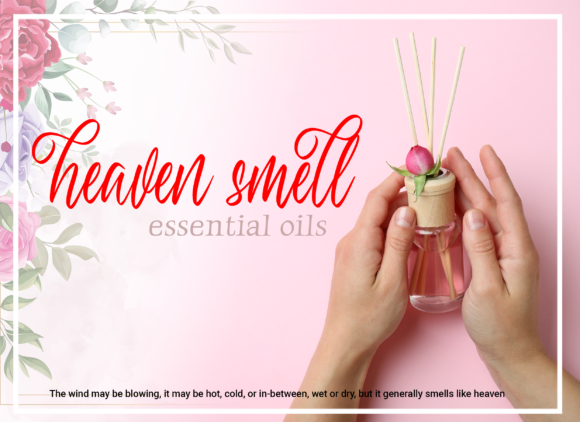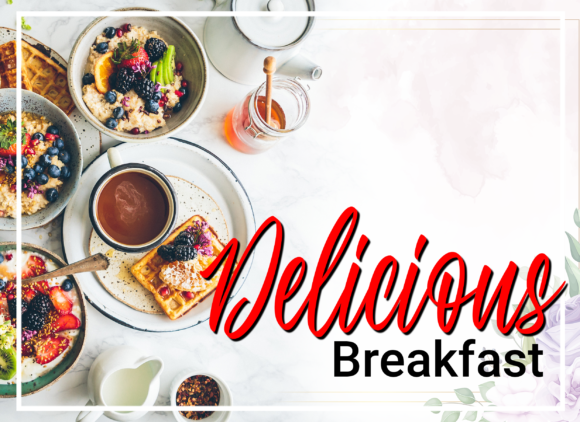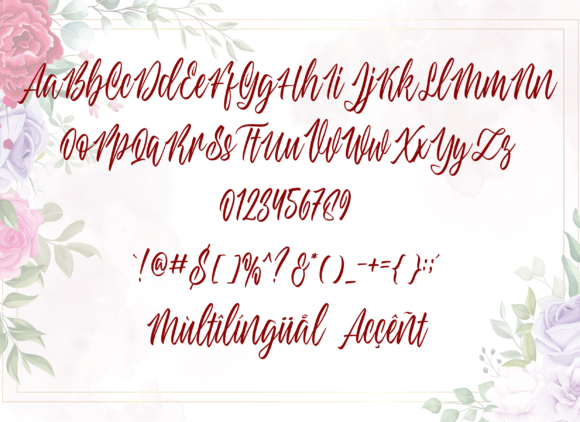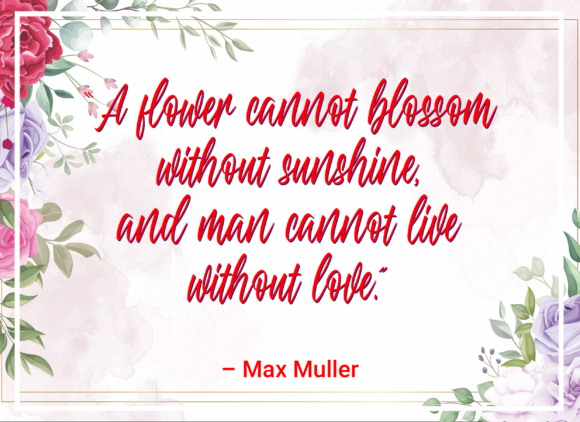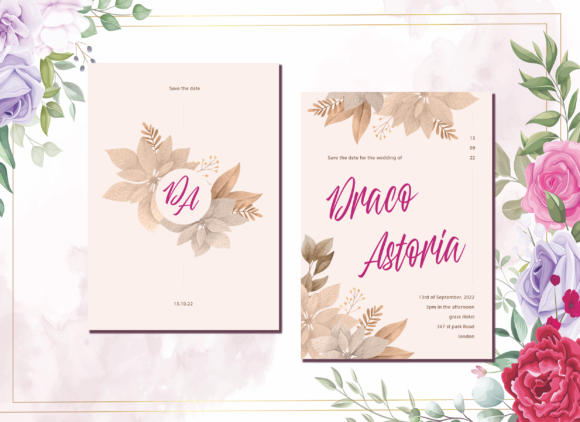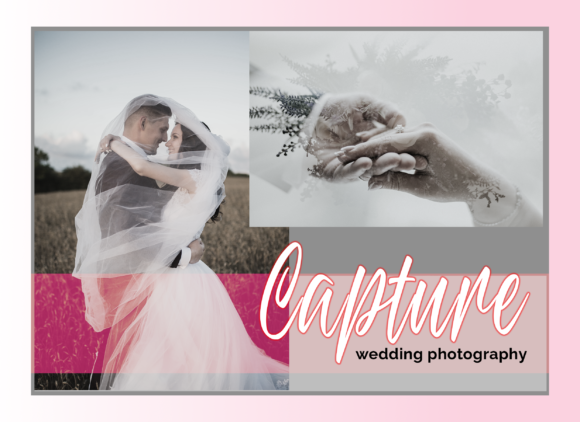
Unleash the Luxe in Your Designs with Borfasya Font
Have you ever been stuck in front of your computer, struggling to find the perfect font to bring your creative vision to life? You know the moment – the cursor blinks, the words stare back at you, and suddenly, a spark of inspiration hits. It’s that magical moment when everything falls into place, and your design project starts to shine.
That’s exactly what Borfasya Font is all about – adding a touch of luxury and elegance to your designs. This beautiful, delicate handwritten font is designed to make a statement and leave a lasting impression. With its unique feel and stunning impact, Borfasya Font is the perfect addition to any design project. Whether you’re a seasoned designer or just starting out, this font is sure to bring a level of sophistication and refinement to your work.
Add Borfasya Font to your toolkit and watch your designs transform with a level of luxury and style that’s hard to resist.
Borfasya Font Key Features
- Font Family: Borfasya Font is a unique, hand-drawn font family that includes a wide range of styles and weights.
- Character Count: The font family includes over 1000 characters, including Latin, Cyrillic, and Greek alphabets, as well as a wide range of punctuation and symbols.
- Resolution: The font is designed to be highly legible at various resolutions, including 72 dpi, 96 dpi, and 300 dpi.
- Size: The font family includes a range of font sizes, from 8 points to 120 points, making it suitable for a wide range of applications.
- Unique Characteristics: Borfasya Font features a distinctive, hand-drawn style with intricate details and flourishes, making it perfect for creative and artistic applications.
Borfasya Font Review
I’ve had the chance to work with Borfasya Font, and here’s my honest take on it.
- Unique character set: Borfasya Font offers a distinct set of characters that can add a touch of personality to any design.
- Legibility: Despite its unconventional look, the font is surprisingly legible, making it suitable for body text and longer passages.
- Customization options: The font comes with a range of customization options, allowing designers to tweak its appearance to fit their specific needs.
- Limited language support: Borfasya Font’s character set is limited to a specific range of languages, which may not be suitable for projects requiring support for multiple languages.
- Not ideal for headings: While the font is legible, it may not be the best choice for headings due to its unconventional appearance.
- May require additional styling: Depending on the design context, Borfasya Font may require additional styling or manipulation to achieve the desired look.
Overall impression
Borfasya Font is a solid choice for designers looking to add some personality to their work. While it may have some limitations, its unique character set and customization options make it a great option for projects where a bold, unconventional look is desired.
Tips: Use Borfasya Font to add a unique touch to your designs, especially for titles and headings. Experiment with different font sizes and colors to create visual hierarchy.
Tips: Use Borfasya Font to create custom typography for your designs. Adjust the font size, color, and spacing to achieve the desired look.
Tips: Use Borfasya Font to add a professional touch to your presentations and documents. Experiment with different font sizes and colors to create visual hierarchy.
Borfasya Font is suitable for various design projects, including:
- Brand identity designs
- Editorial designs
- Infographics
Alternatives to Borfasya Font
Playfair Display is an elegant and luxurious serif font, perfect for adding a touch of sophistication to your designs. It’s ideal for use in titles, headings, and other prominent text elements where you want to make a statement.
Playfair Display has a similar luxurious feel to Borfasya Font, but with a more refined and classic look. It’s a great choice if you’re looking for a font that exudes high-end style and sophistication.